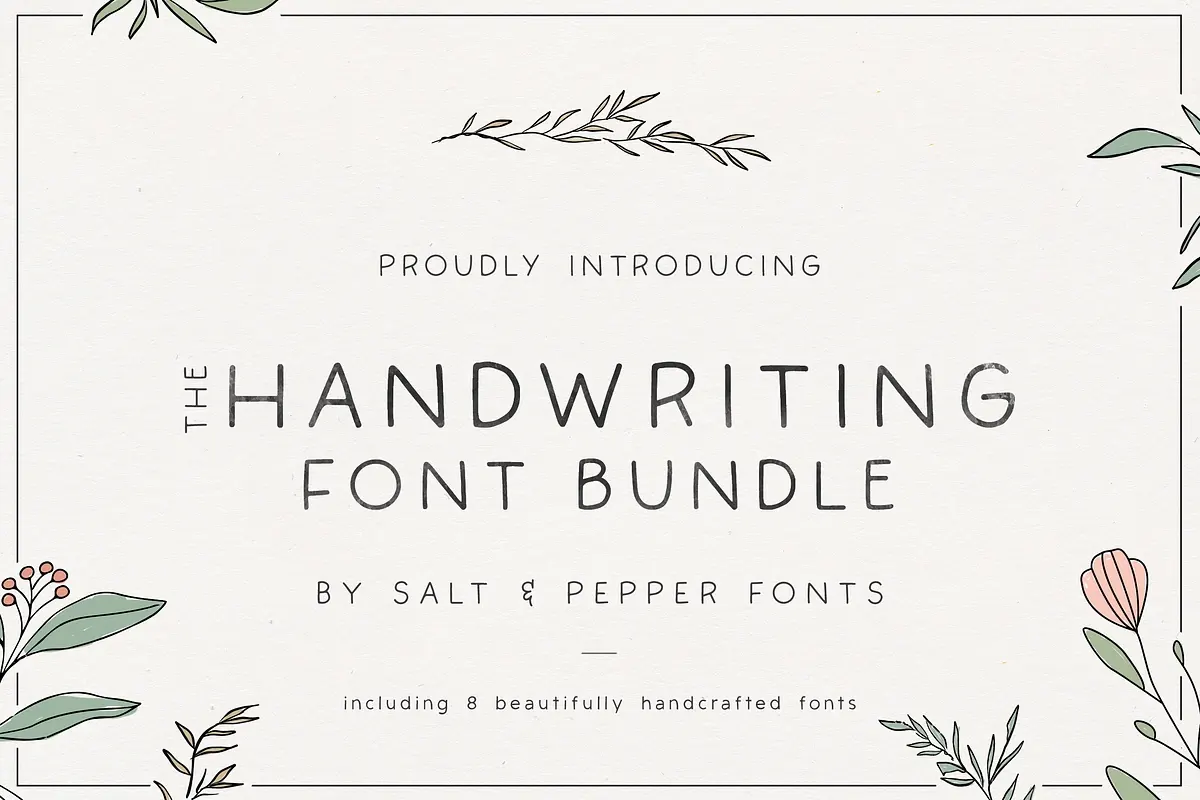
The Handwriting Font Bundle Free Download
The Handwriting Font Bundle Free Download is a versatile collection of beautiful handwritten fonts, perfect for a wide range of creative projects. Whether you're working on logos, invitations, branding, or social media posts, this bundle has everything you need to add a personal, authentic touch to your designs. With a variety of styles, from casual scripts to elegant calligraphy, this font bundle is ideal for any project that requires a unique and artistic feel.